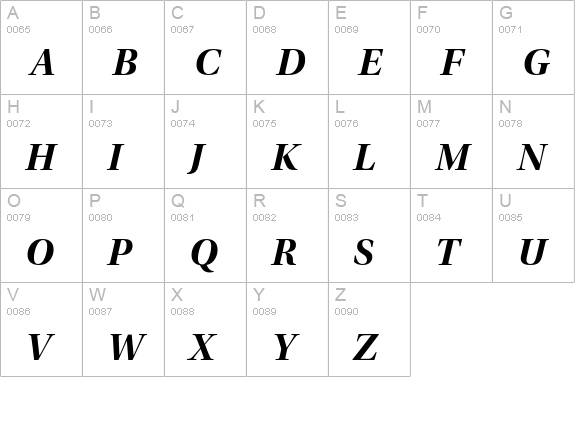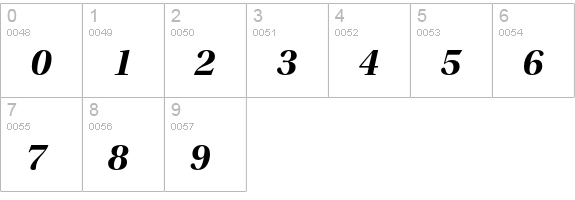
Utopia Std Bold Display Italic Font Details
Utopia Std Bold Display Italic is a strong, high-contrast, italic variant in the Utopia typeface family \xE2\x80\x94 well suited to headlines, attention-grabbing titles, and strong calls-to-action.
Utopia Std Bold Display Italic font is a beautifully designed typeface that embodies elegance and sophistication. Its bold and italicized form adds a touch of drama and emphasis to any text it is applied to. This font is perfect for creating eye-catching headlines, titles, or any other design element that requires a strong and impactful presence. Its unique letterforms and sleek curves make it stand out from the crowd, while still maintaining a sense of balance and harmony. What sets Utopia Std Bold Display Italic apart from other fonts is not only its stunning aesthetics, but also its versatility. It can be used in a wide range of projects, from print materials such as brochures and posters, to digital designs like websites and social media graphics. And the best part? Utopia Std Bold Display Italic font is freely available to download at FontsMarket.com. That means you can enhance your designs with this exceptional typeface without having to spend a dime. So why wait? Capture attention, convey your message with confidence, and elevate your designs to a whole new level with Utopia Std Bold Display Italic font. Download it now and let your creativity soar.